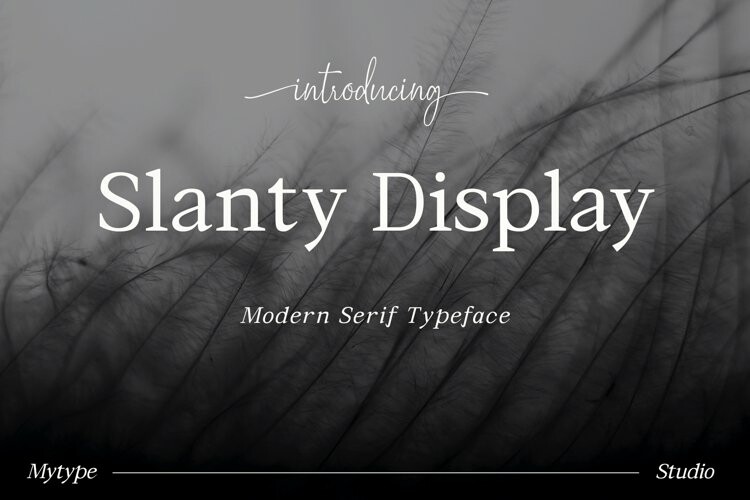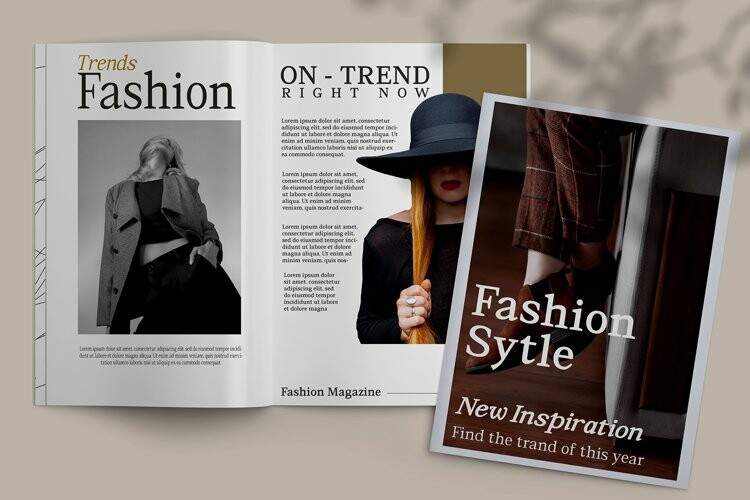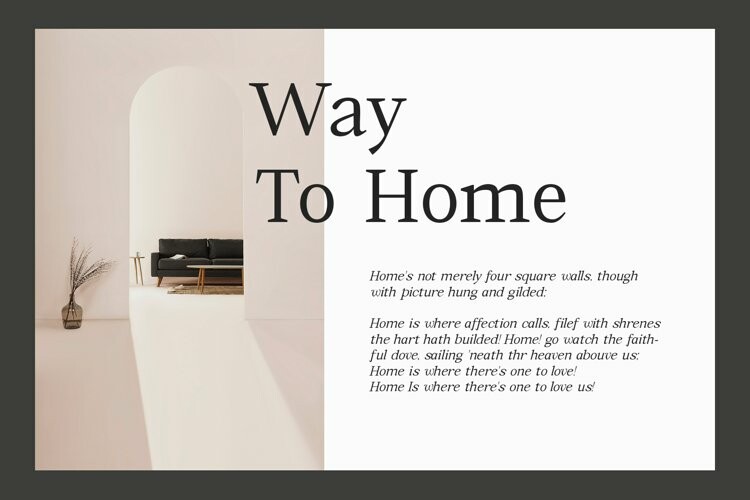
Slanty Display Font
Slanty Display FontSlanty Display – an exquisite display modern serif, inspired by classic roman arts and vintage cars aesthetics. Specially designed for luxury, clean, high-end projects, perfectly suitable for creating elegant, classy design such as magazine, social media, and more